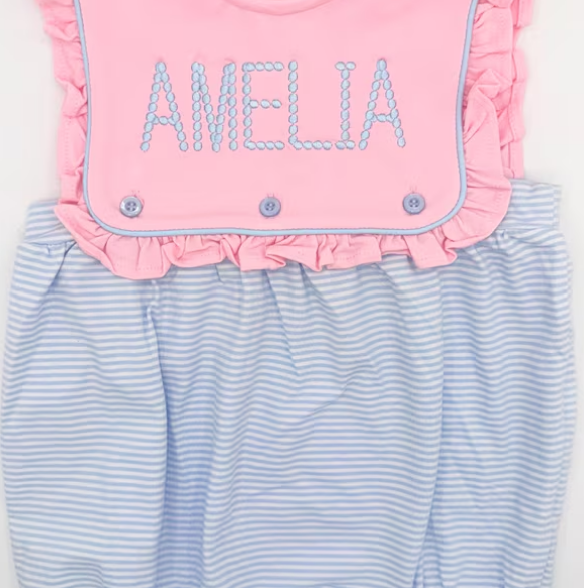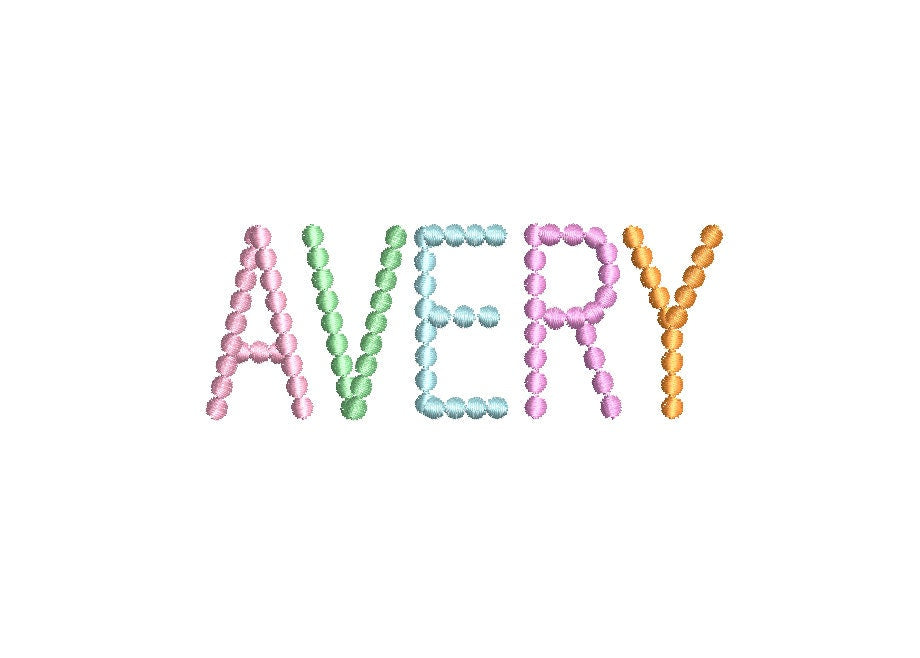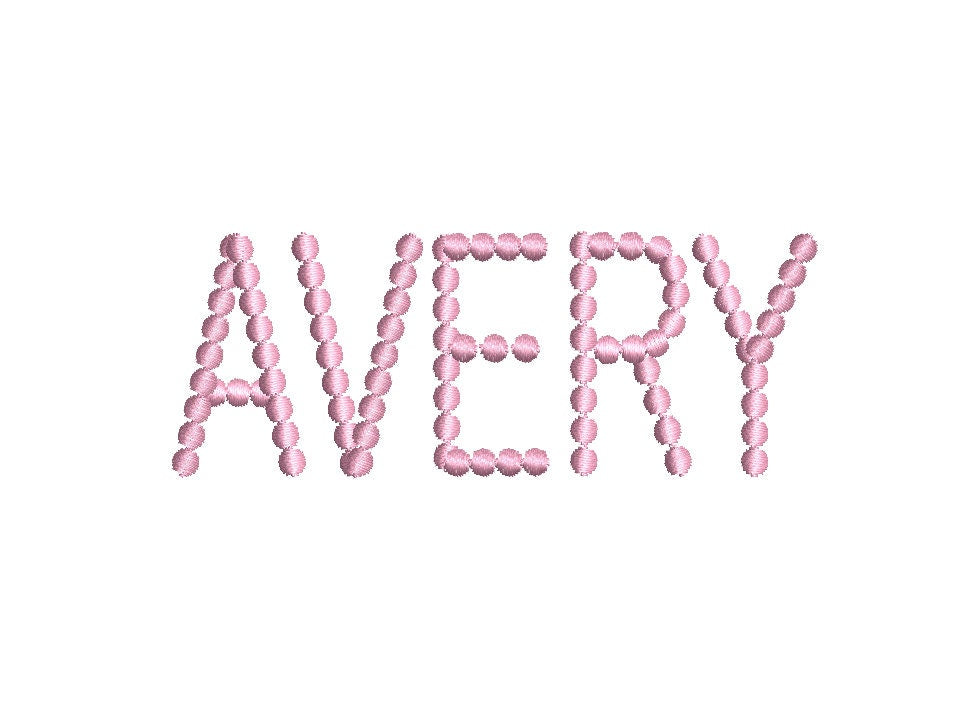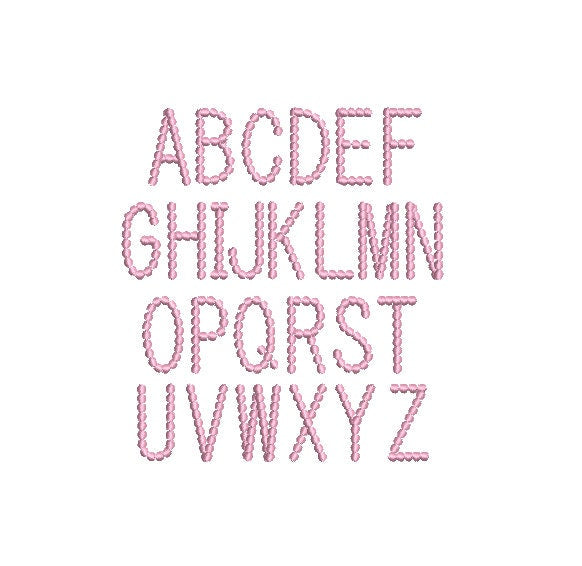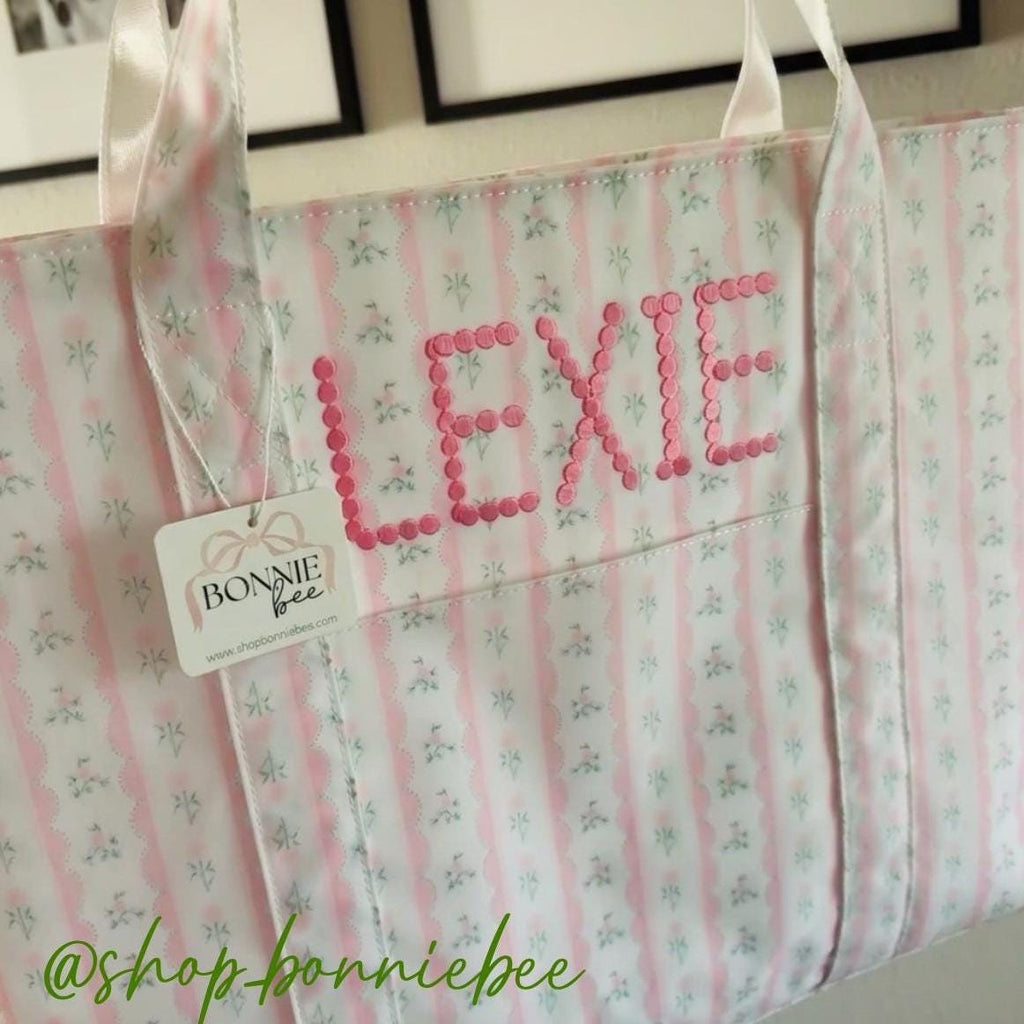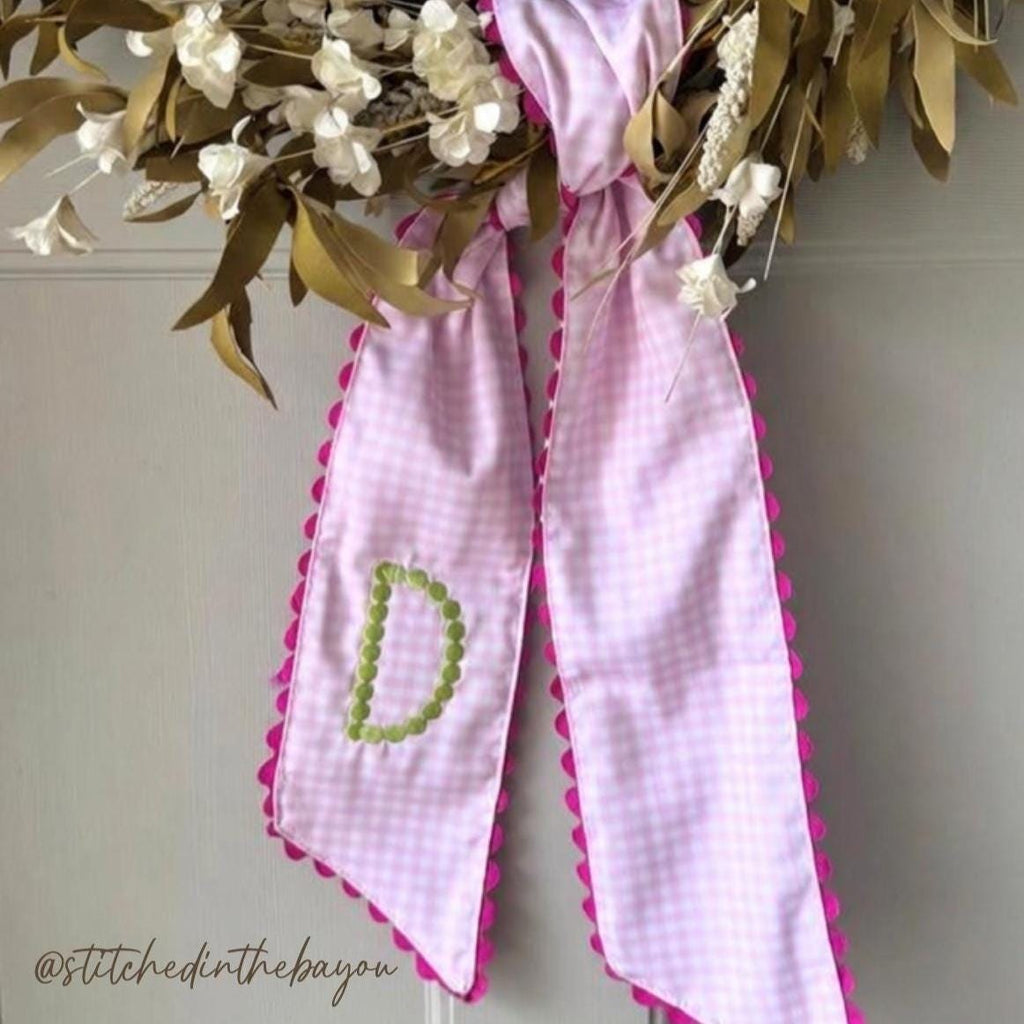
This is a DIGITAL instant download only of an all capital letter pearl/beaded font machine embroidery design offered in 5 sizes, 8 Machine Formats and now in BX mapped files! Crazy cute and perfect for embroidering on just about anything a girl could want!
Design Tip: Use WSS topper doubled over particularly on the smaller sizes.